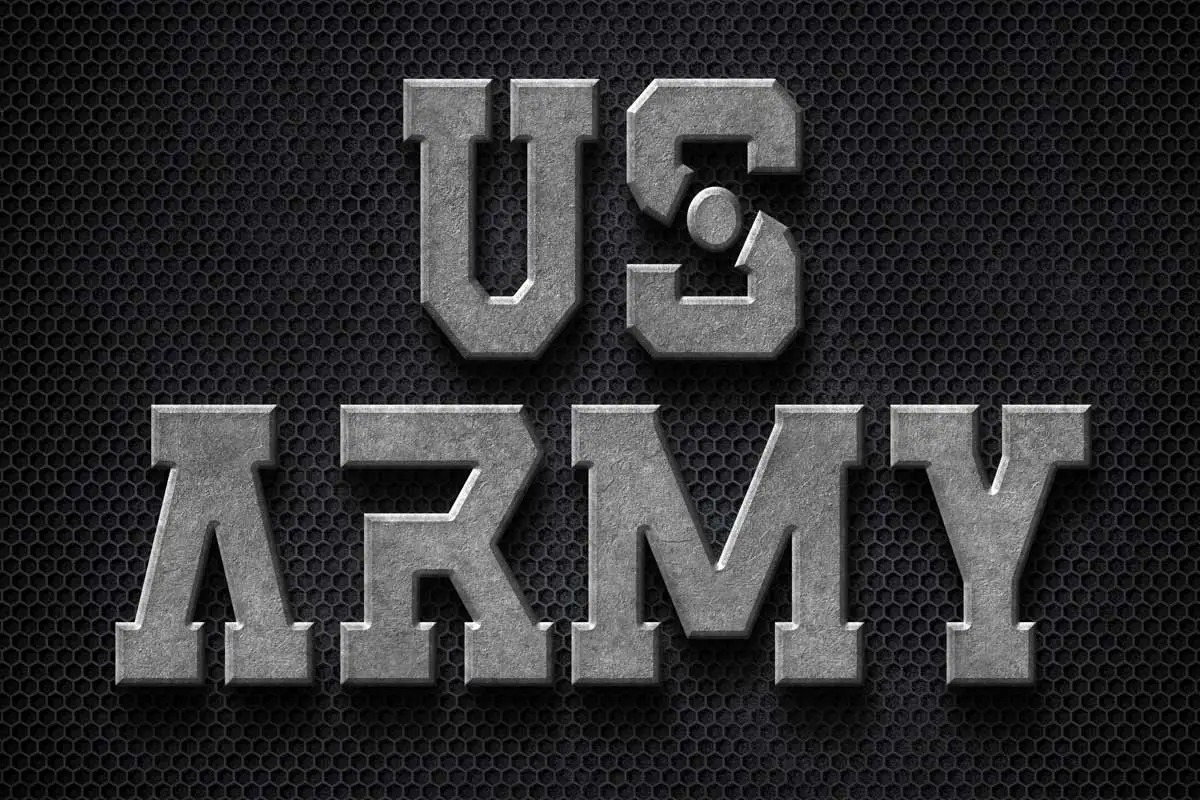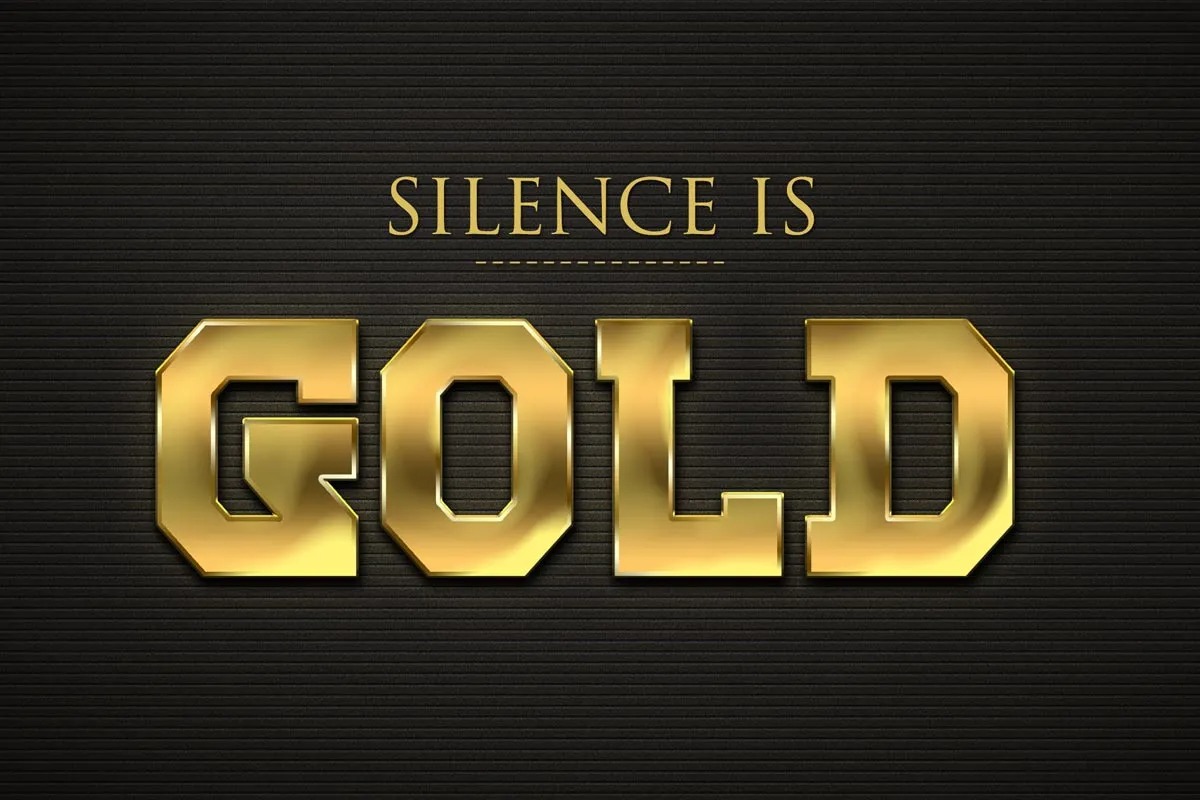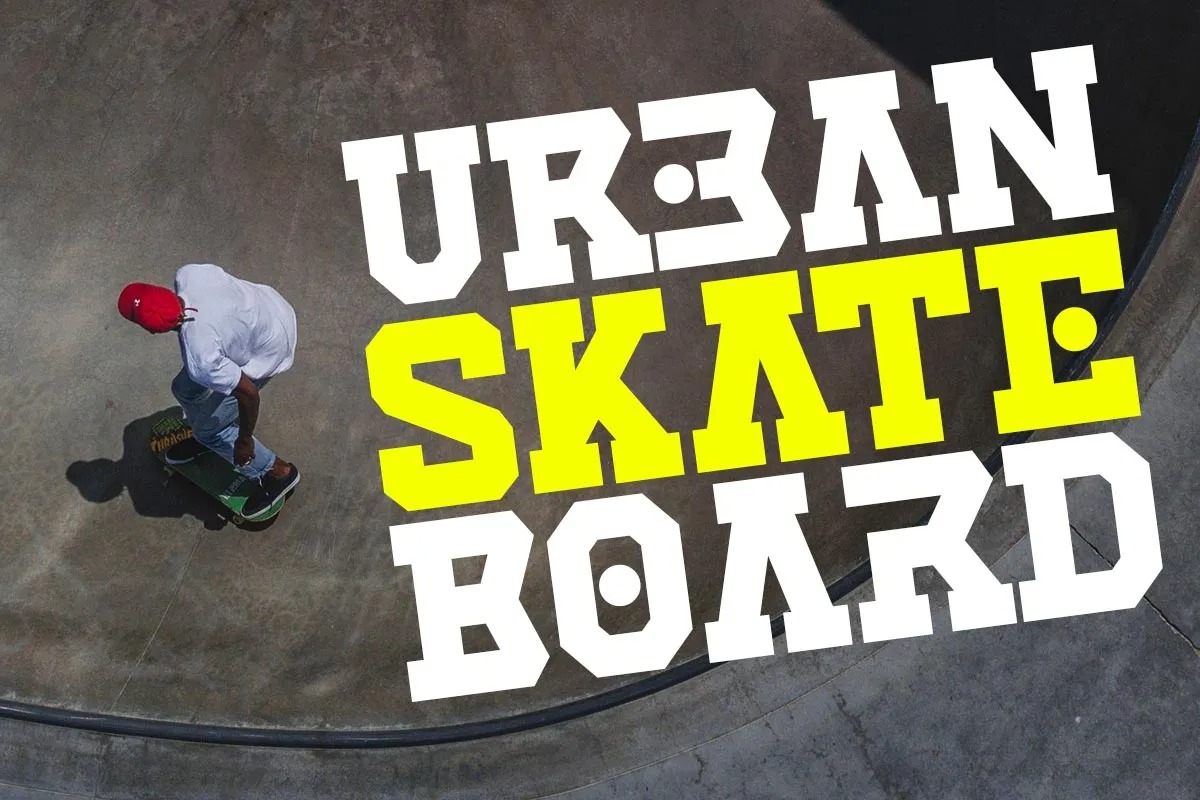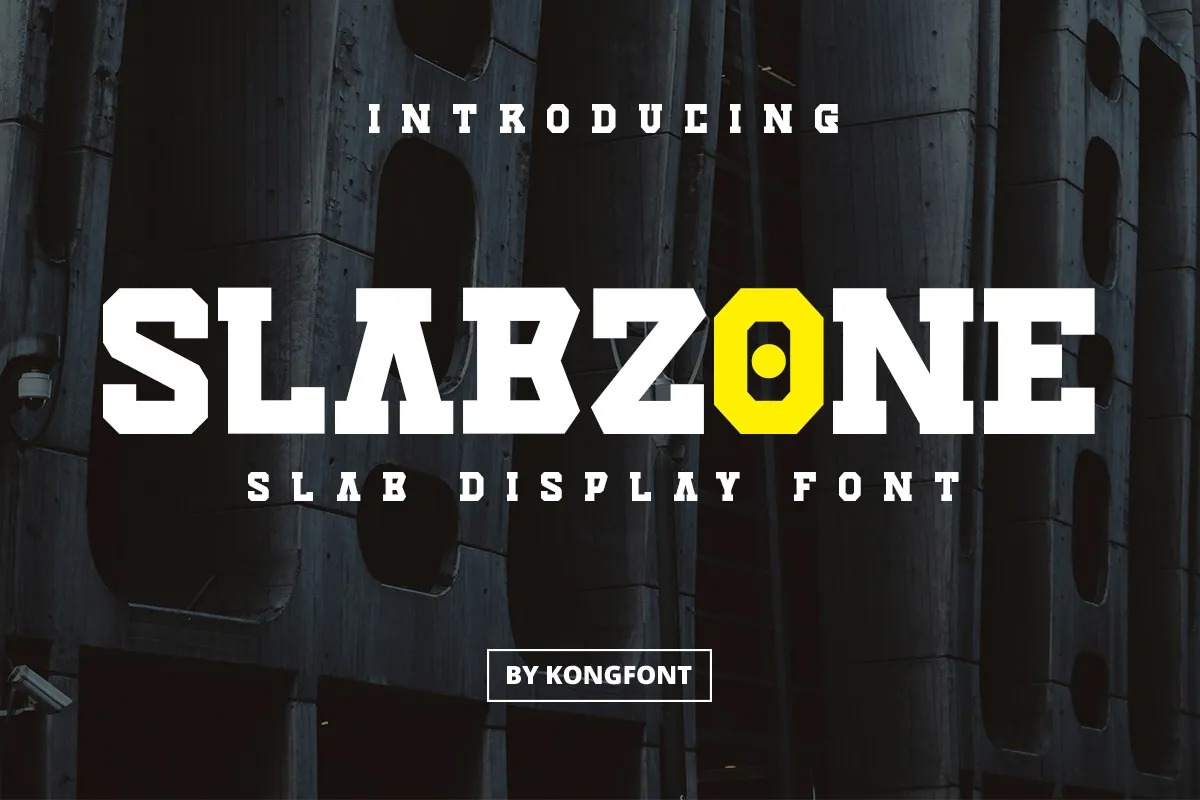
Slabzone Display Font
It’s a bold slab serif typeface. Made from font designer named Kong Font. This font is elegant and it based on the combining a variety of styles. Suitable for Logo, greeting cards, quotes, posters, branding, name card, stationary, design title, blog header, art quote, typography